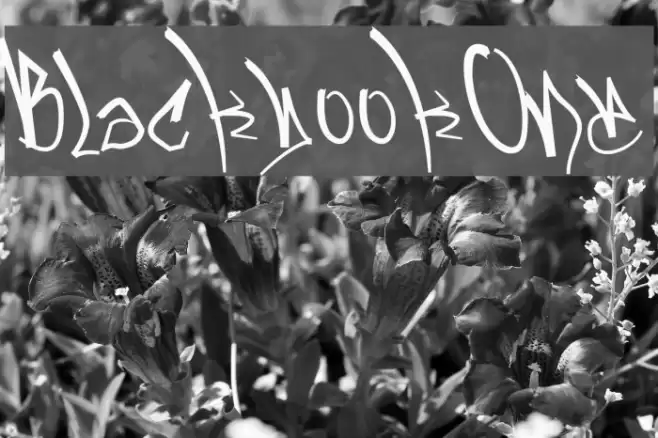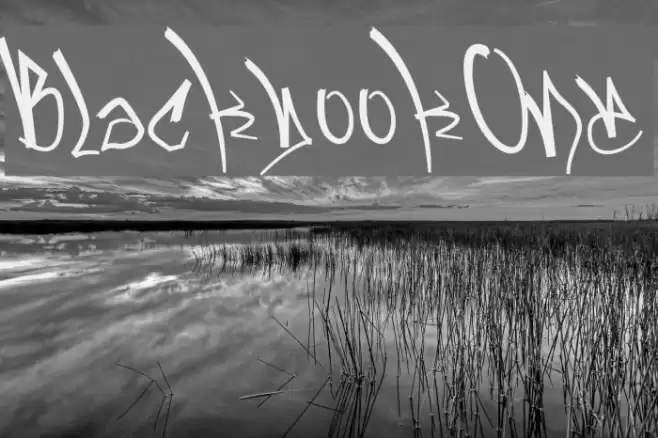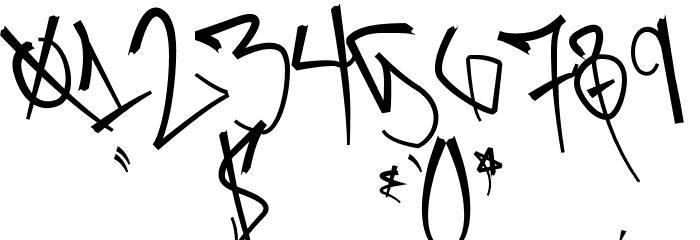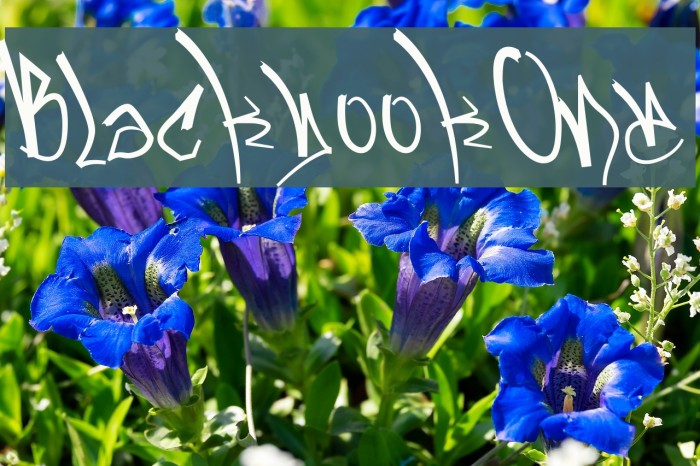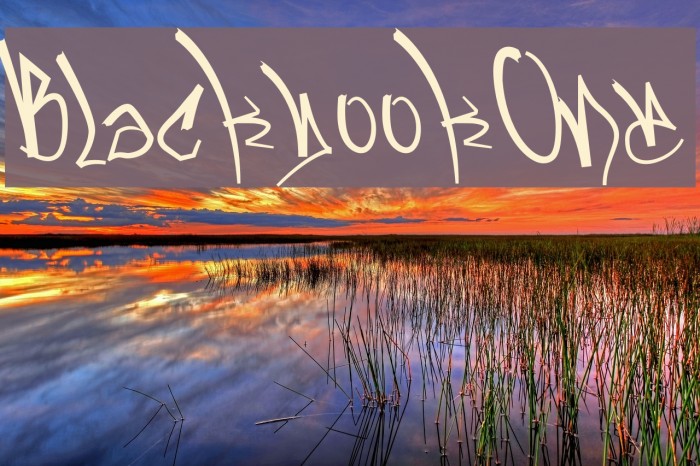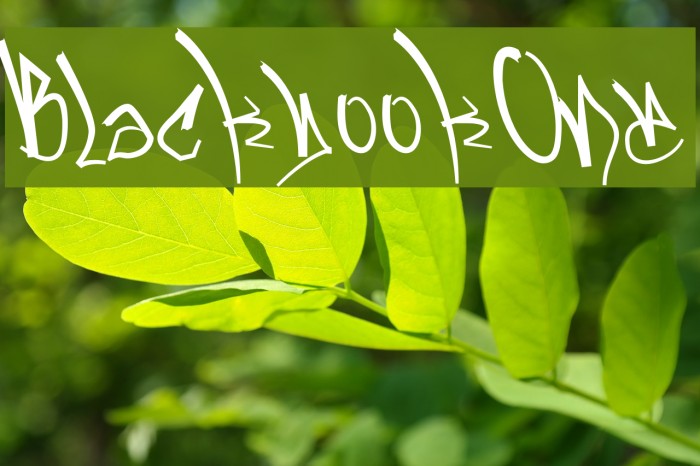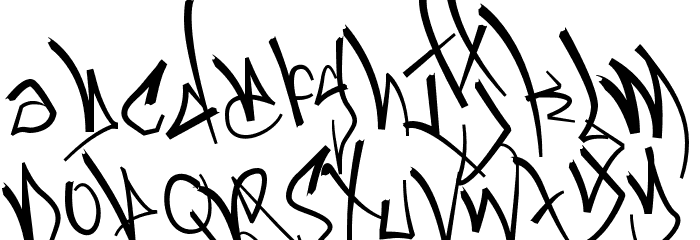
BlackbookOne Font
BlackbookOne Description
This font exhibits a highly stylized and artistic graffiti-inspired design. The characters are characterized by sharp angles, exaggerated curves, and a dynamic flow that mimics the fluidity of street art. Each letter and number is unique, with varying line thicknesses and unexpected twists, creating a sense of movement and energy. The special characters are equally expressive, adding to the overall urban and edgy aesthetic. This font is not designed for readability but rather for making a bold visual statement.
A graffiti-inspired, artistic font with dynamic and expressive characters from Uncategorized fonts.
- Proposed Projects: Ideal for street art projects, urban-themed posters, album covers, and any design requiring a bold, edgy aesthetic.
- Character Spacing: Tight
- Overall Style: Urban, Graffiti, Artistic
- Use Case: Logos, Posters, Album Covers